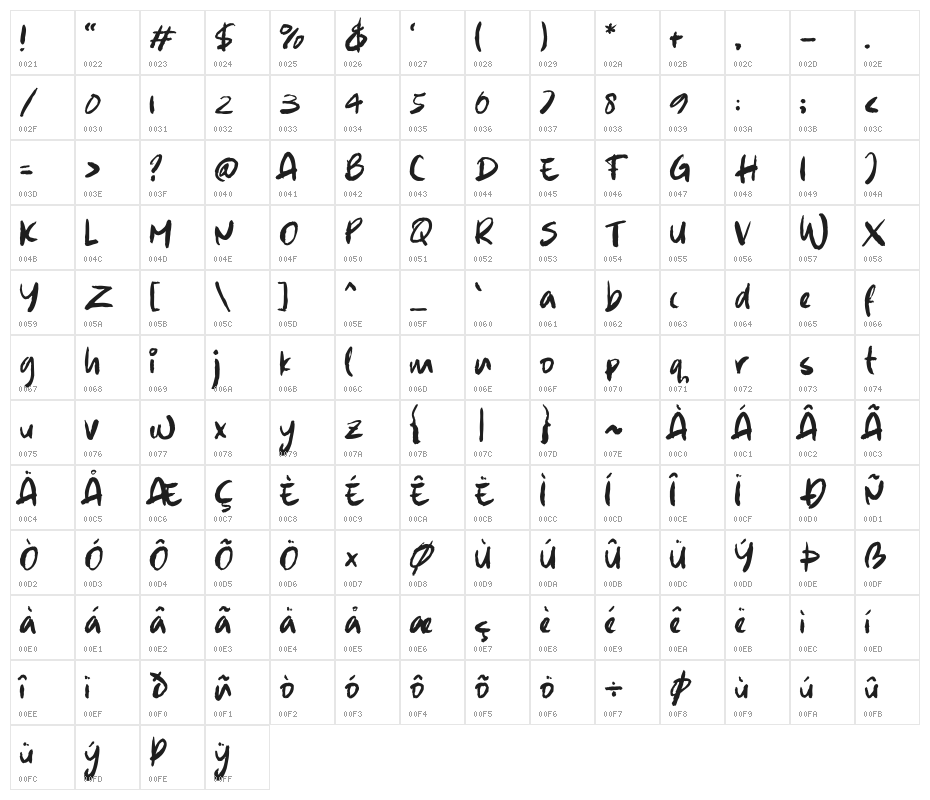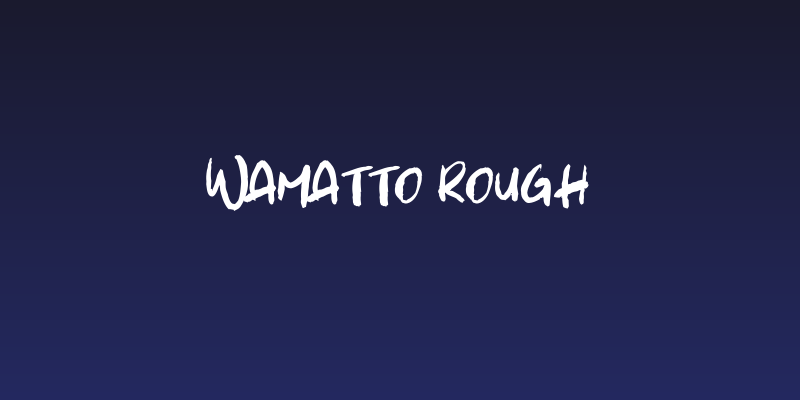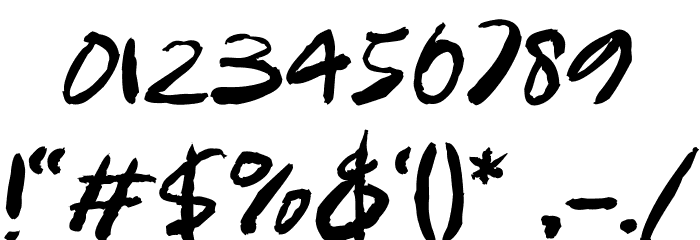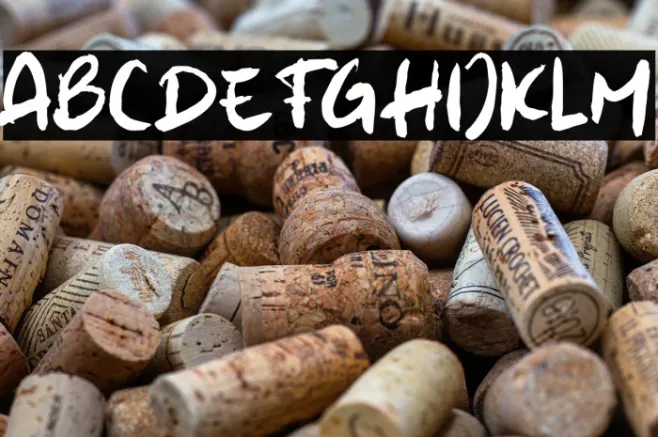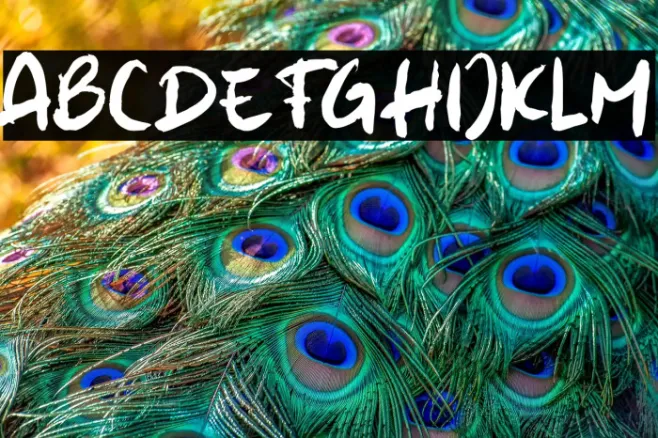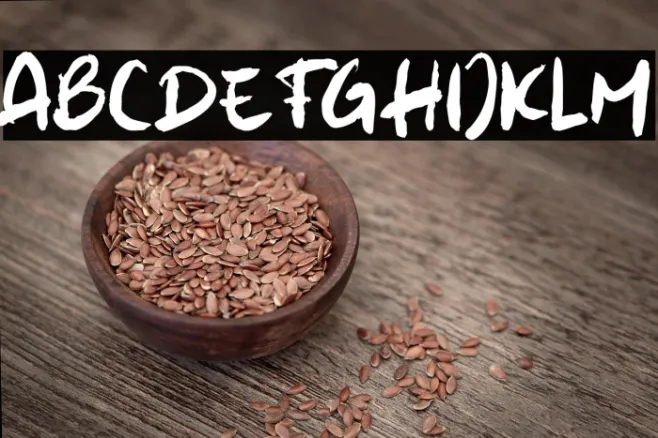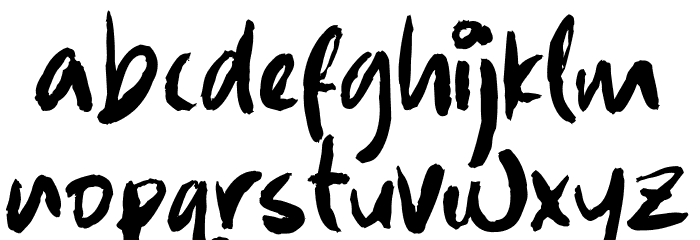
Wamatto Rough Font
Wamatto Rough Description
This font features a bold and expressive style with a rough, hand-painted appearance. The strokes are uneven and dynamic, giving it an energetic and artistic feel. The uppercase and lowercase letters maintain a consistent style, with a slightly irregular baseline that adds to its handcrafted look. The numbers and special characters follow the same aesthetic, ensuring a cohesive appearance across all characters. This font is perfect for projects that require a personal touch or a creative flair, such as artistic posters, branding for creative industries, or any design that aims to stand out with a unique and bold statement.
| Use Case | Logos, Headlines, Artistic Designs |
| Proposed Projects | Ideal for artistic posters, creative branding, and standout design projects. |